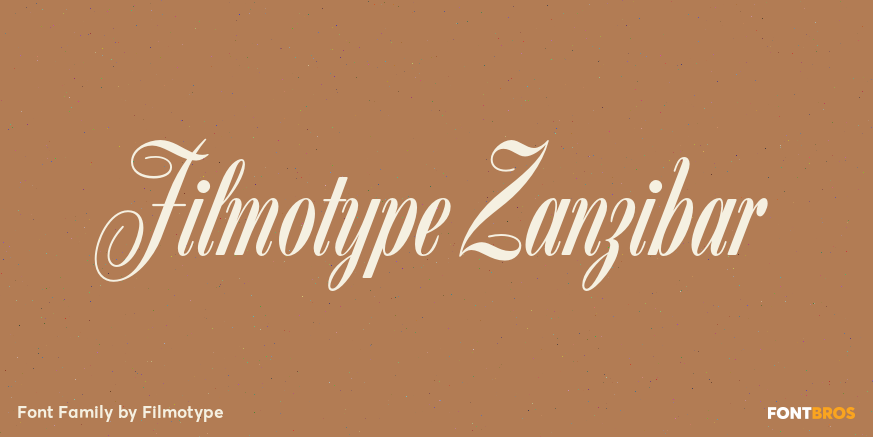
Filmotype Zanzibar
About Filmotype Zanzibar
Strikingly poised and almost as exotic as it sounds, Filmotype Zanzibar is among Filmotype\’s most amazing and beautiful formal scripts released. This hidden gem from the early 1950s has been meticulously redrawn from the original font filmstrips and has…